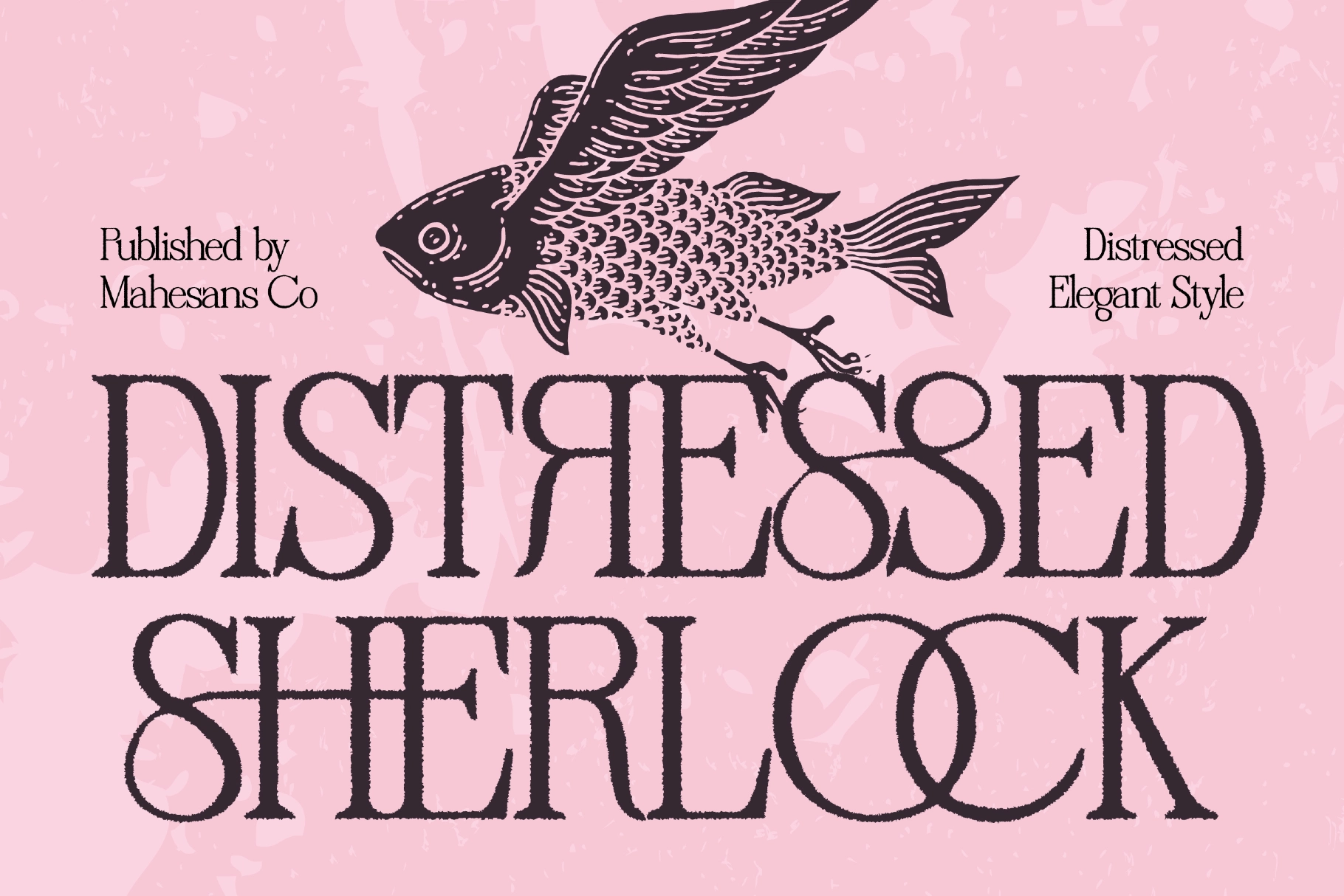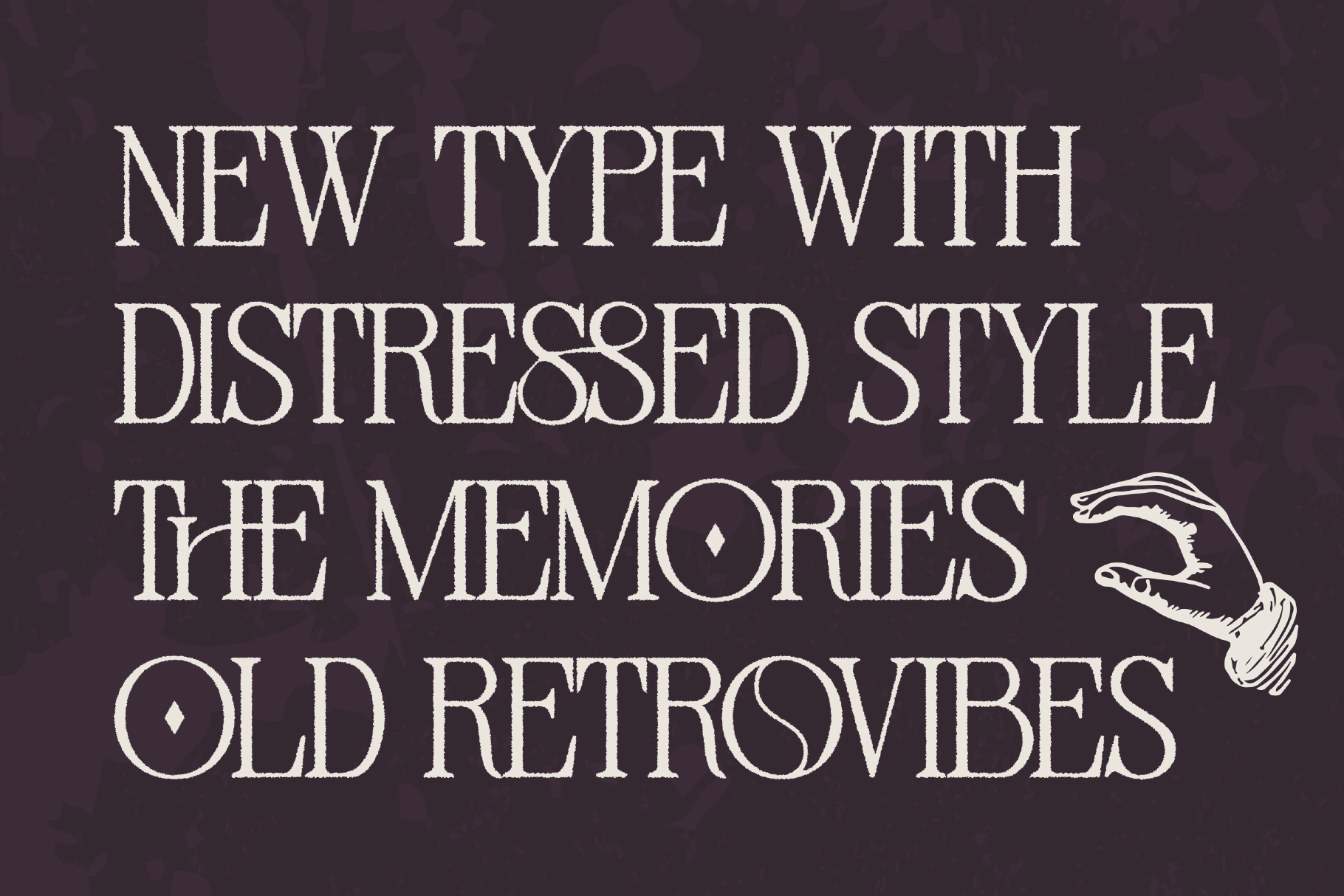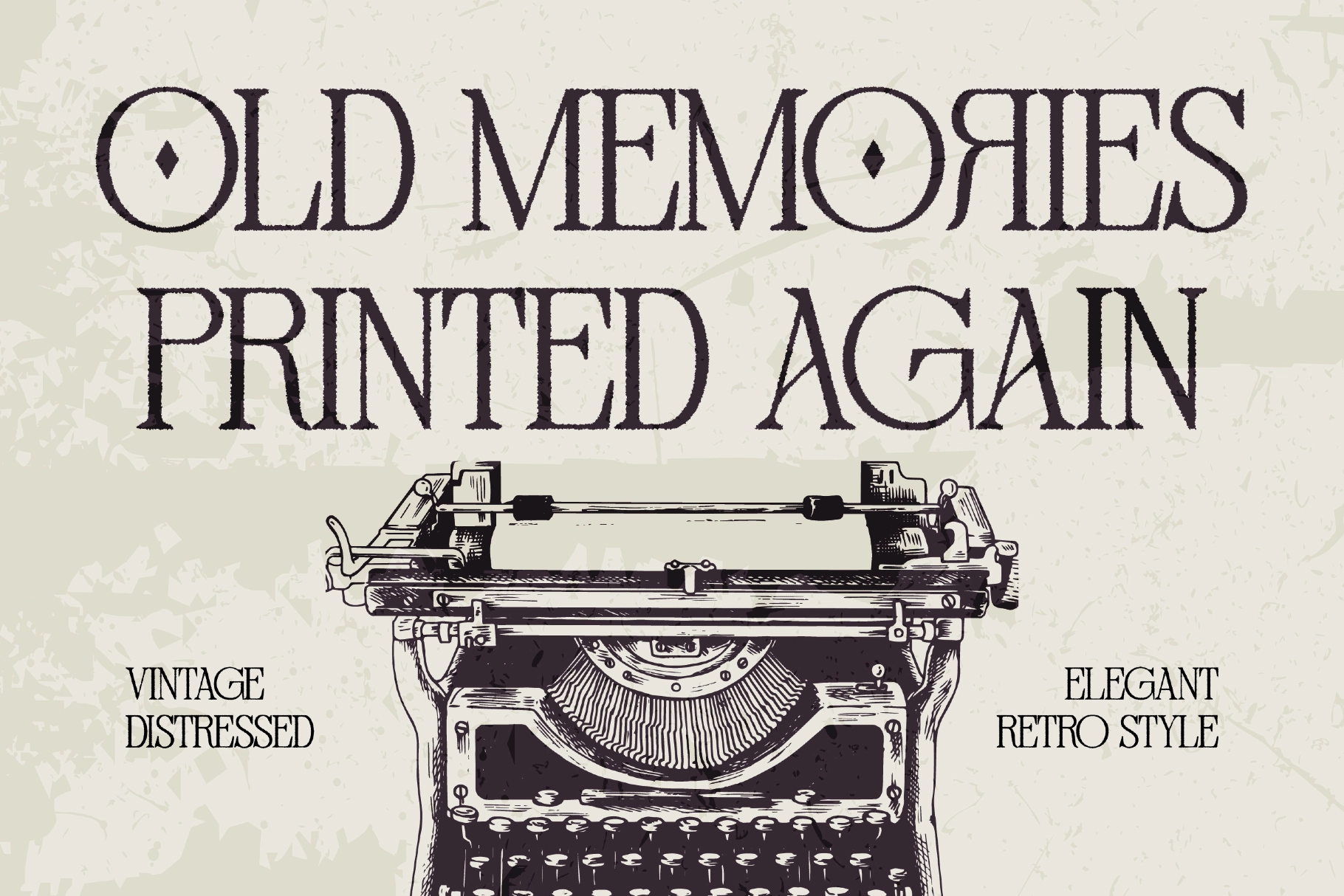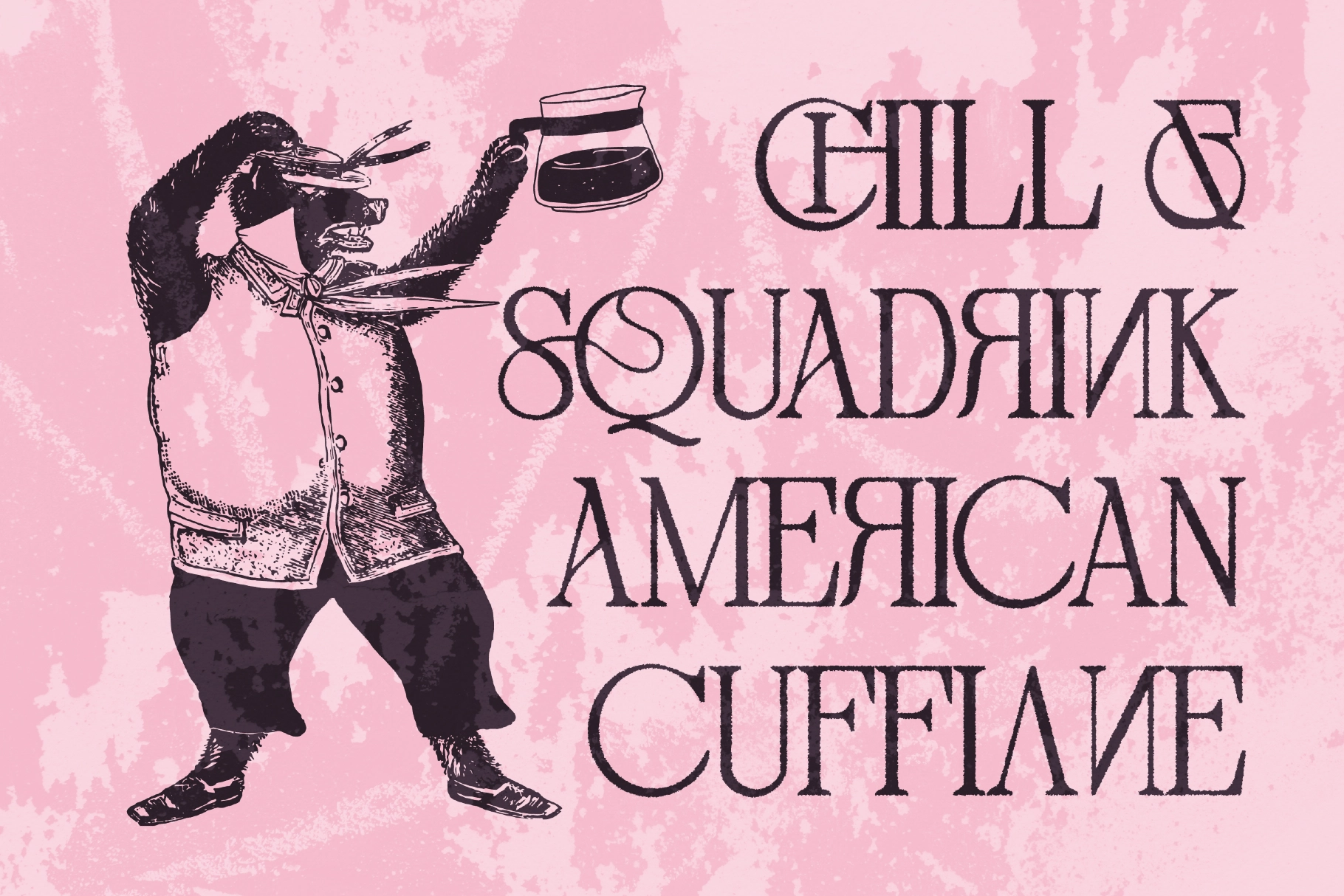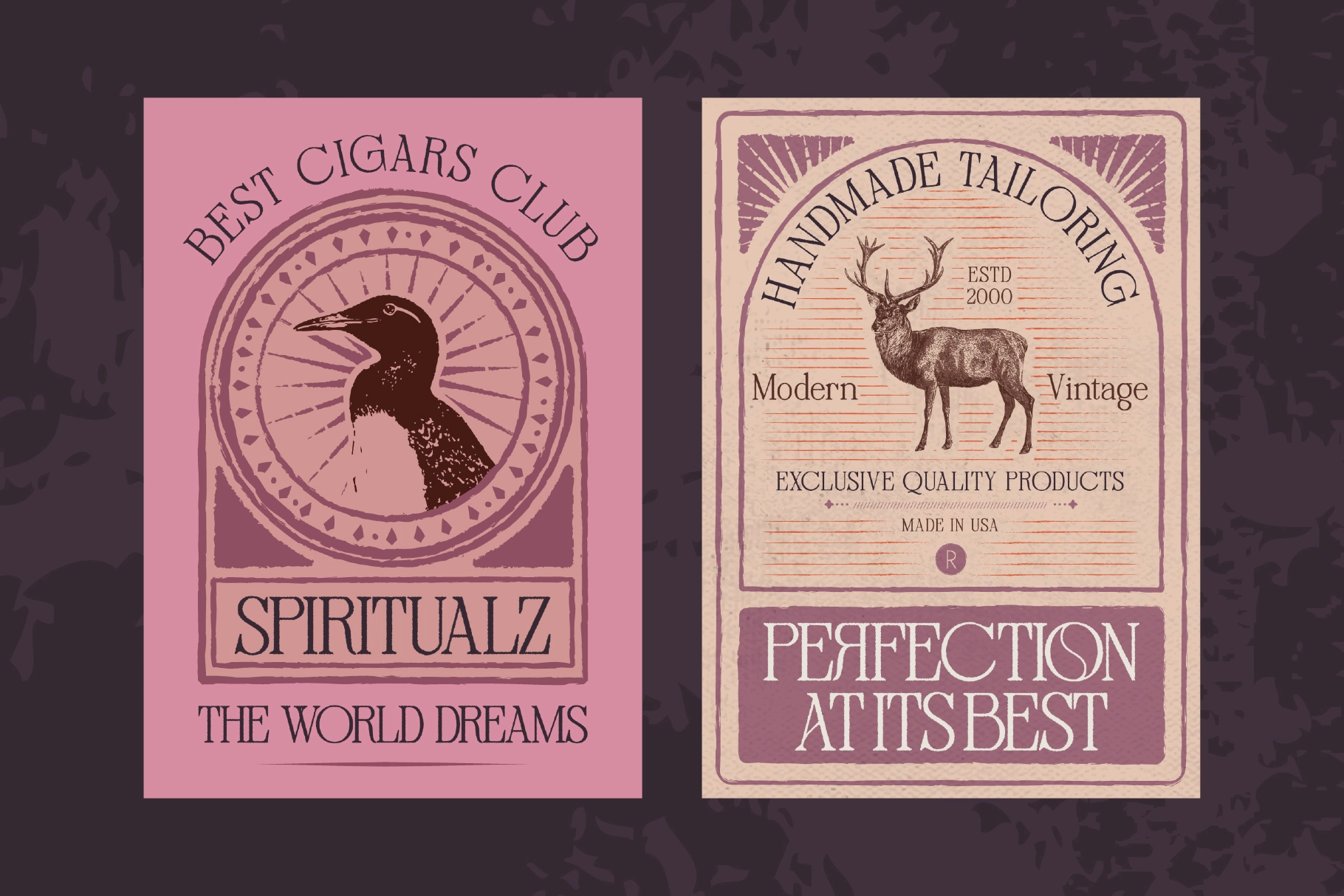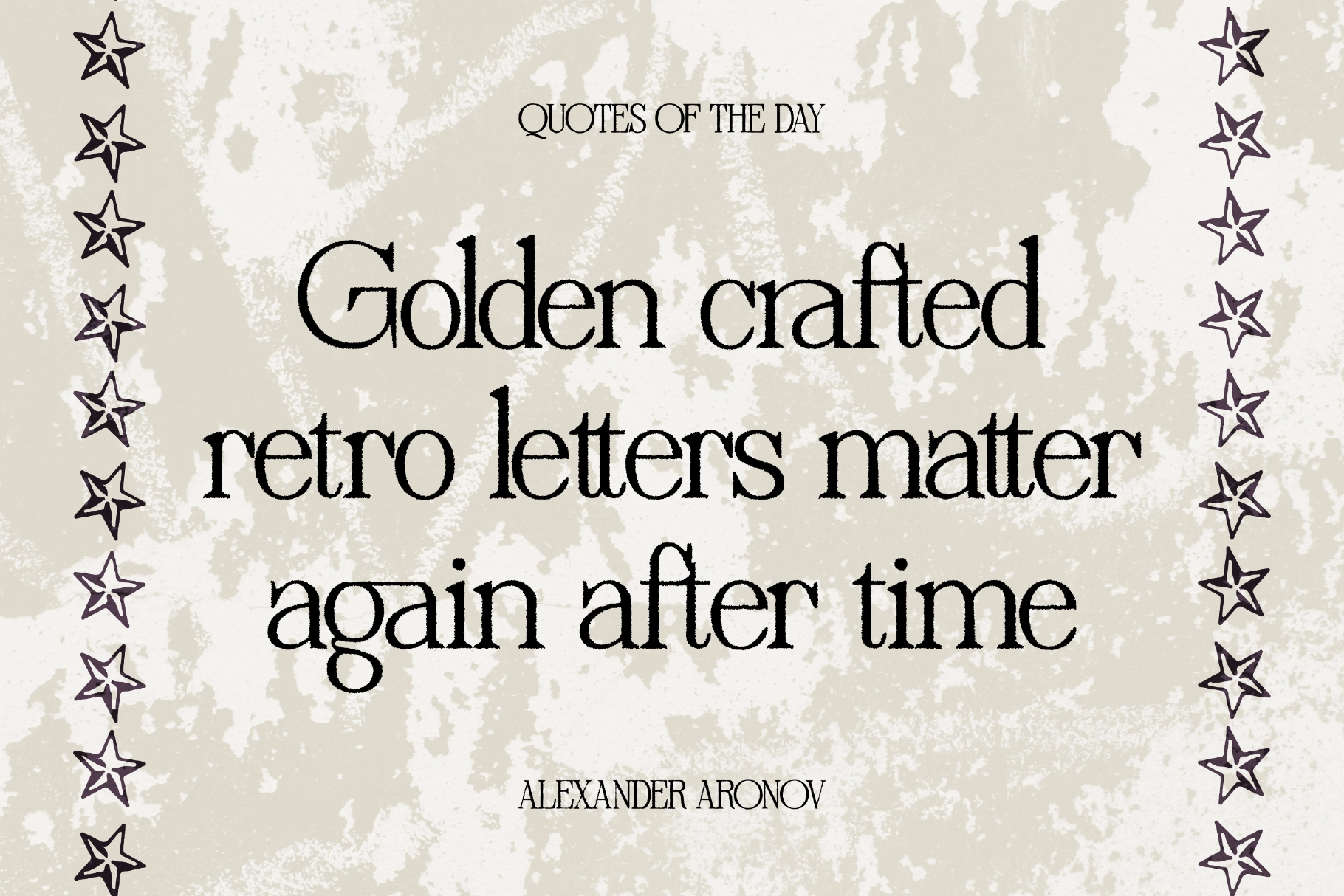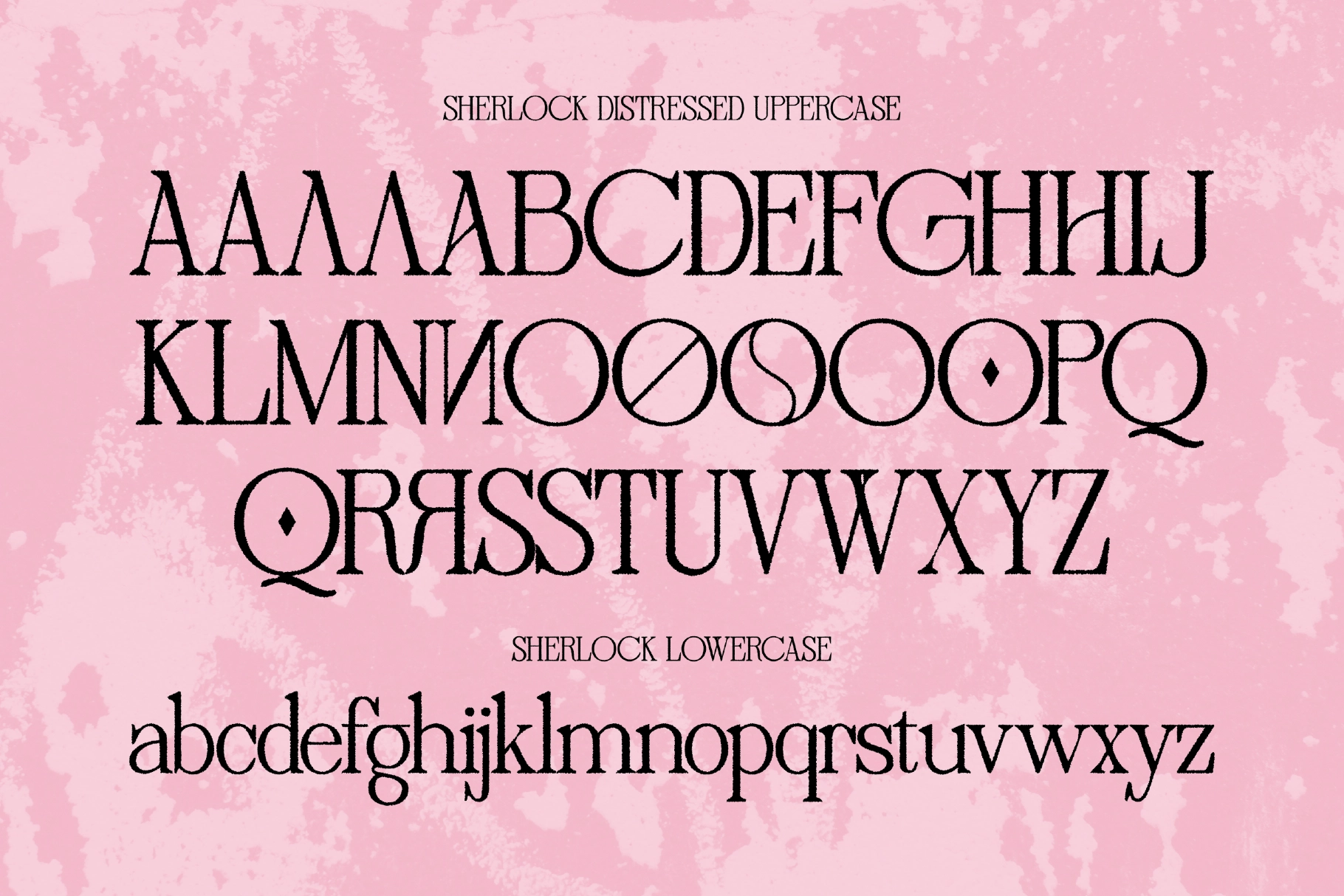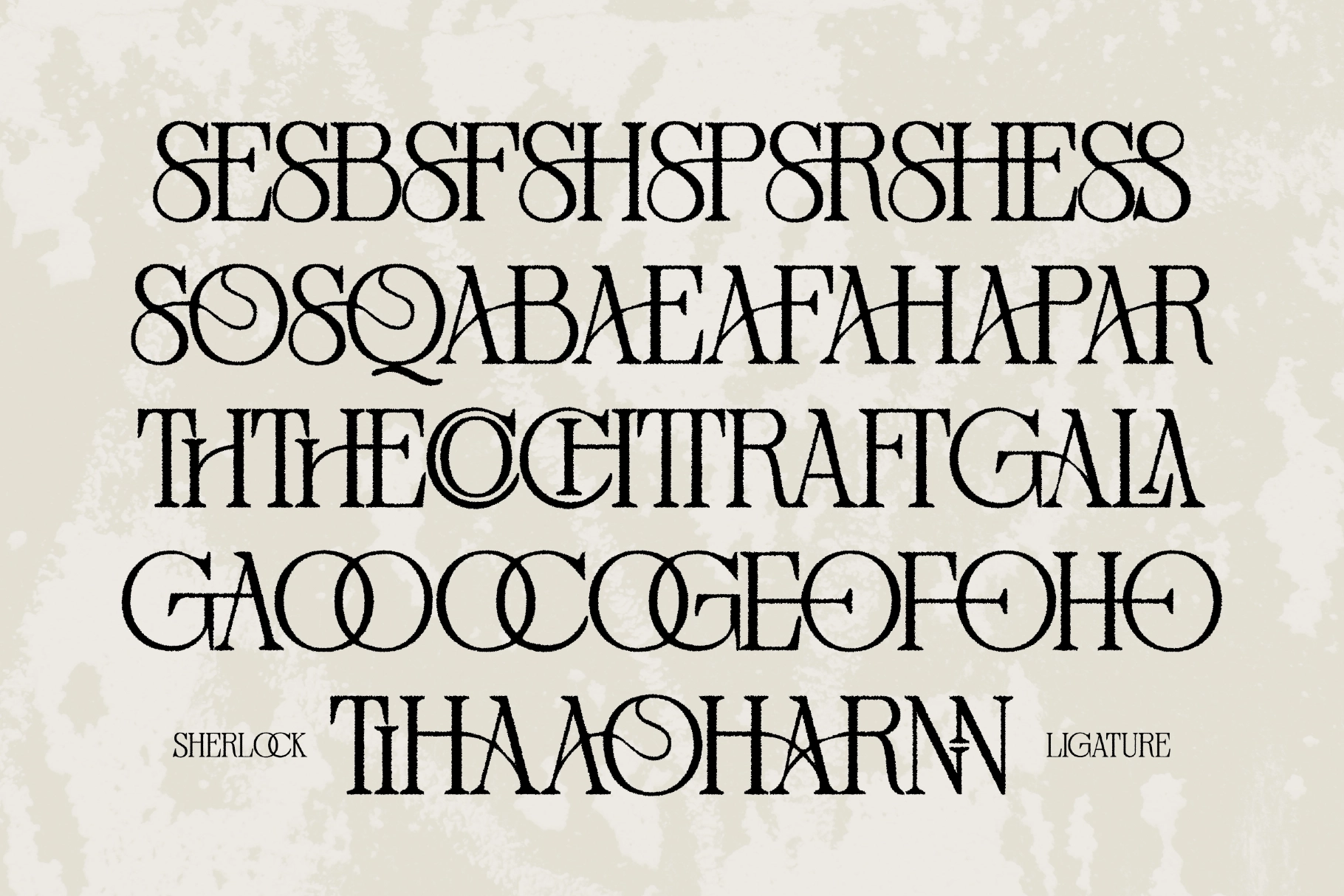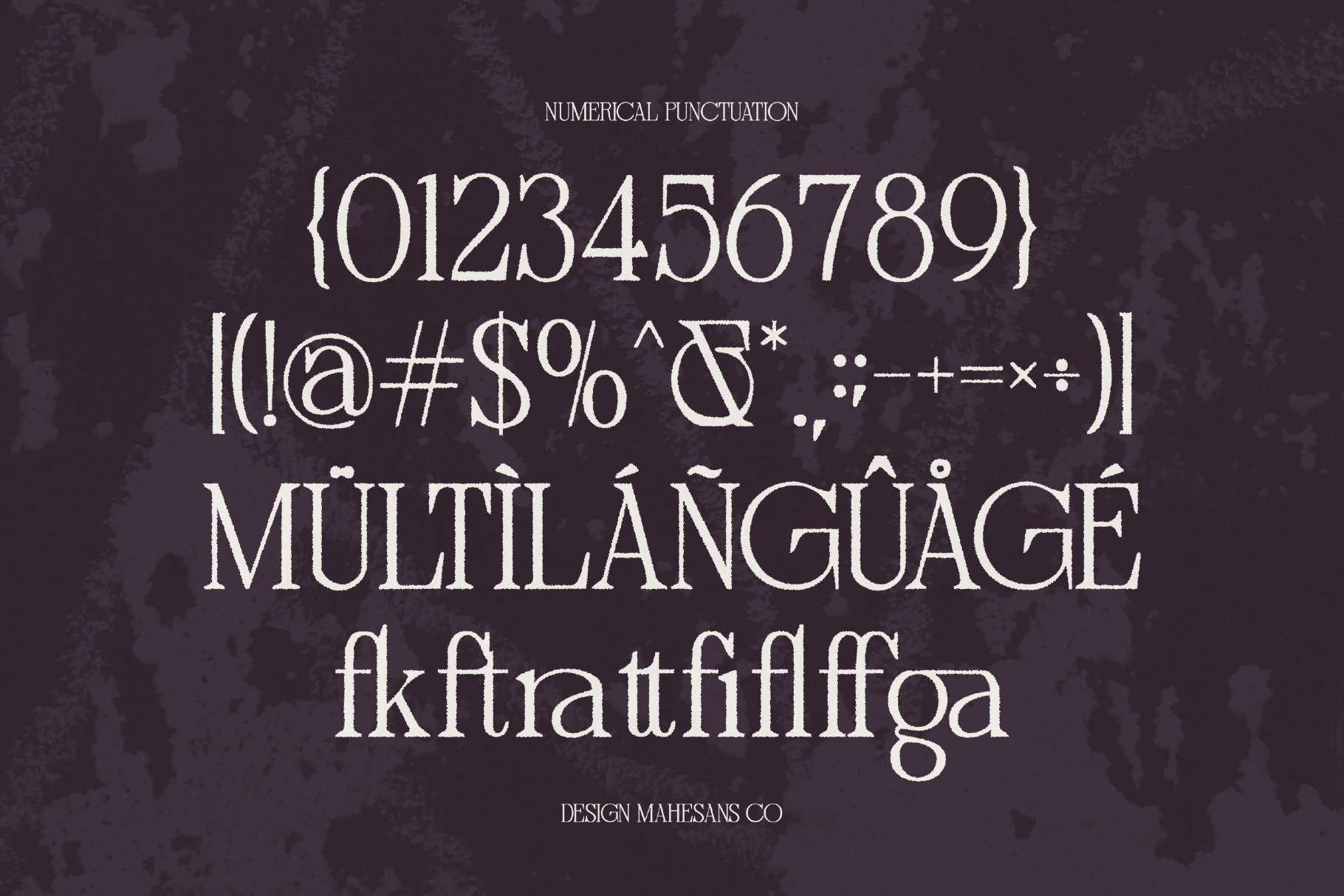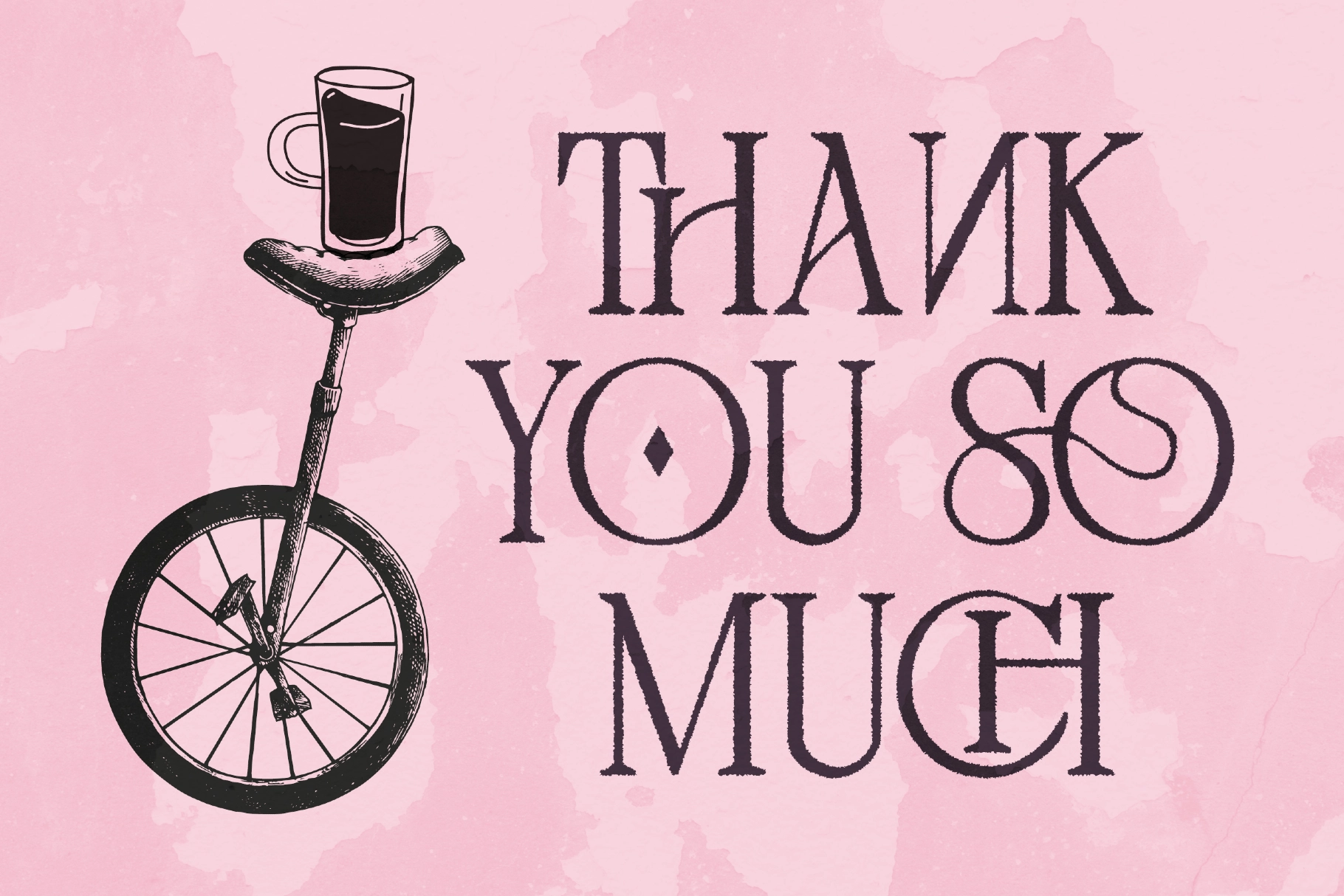
Distressed Sherlock — Vintage Editorial Serif Font
Distressed Sherlock
Distressed Sherlock builds its serifs from tall, narrow strokes with a rough, worn edge, then lets certain letter pairs merge into decorative ligatures the way old hand-set type used to break down at the joints — a distressed elegant serif font with worn, editorial character rather than a clean digital finish.
Use it for branding, logos, editorial layouts, magazines, packaging, wedding invitations, quotes, posters, and book covers. The stylistic alternates and ligatures swap in extra flourish for headline settings without needing a second file.
- uppercase & lowercase;
- numerals & punctuation;
- ligatures & stylistic alternates;
- 267 glyphs total